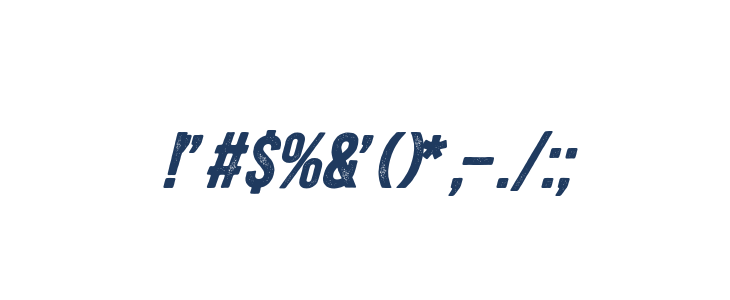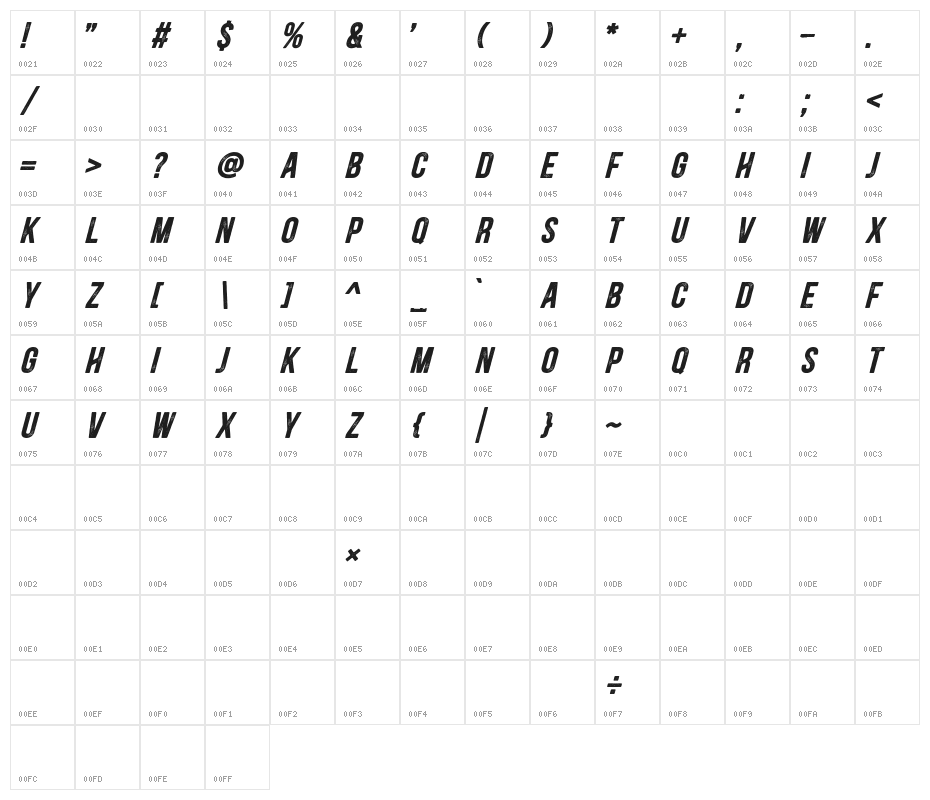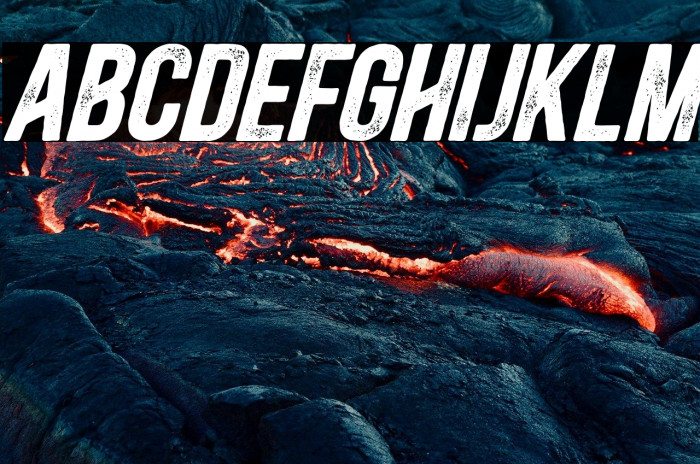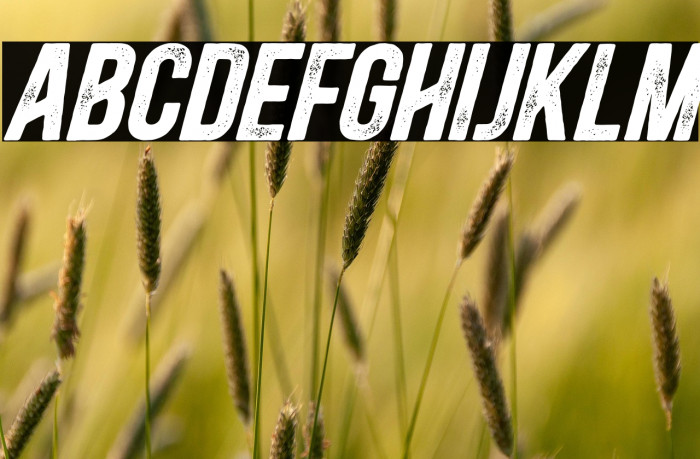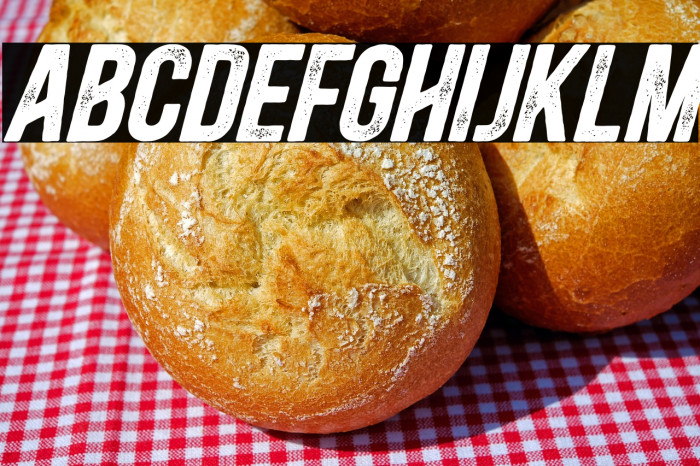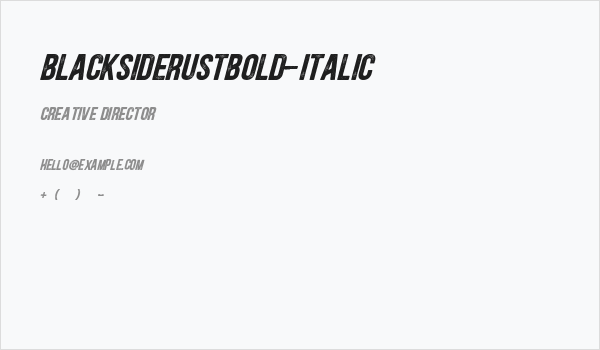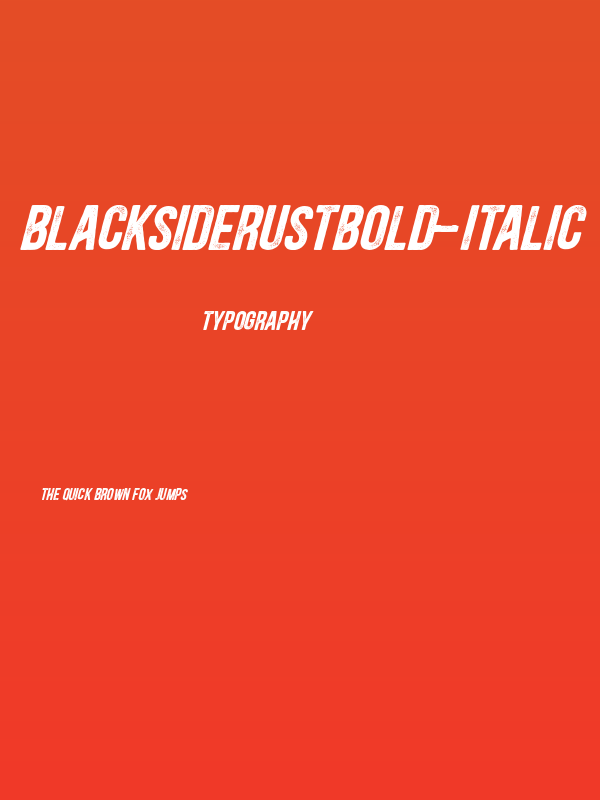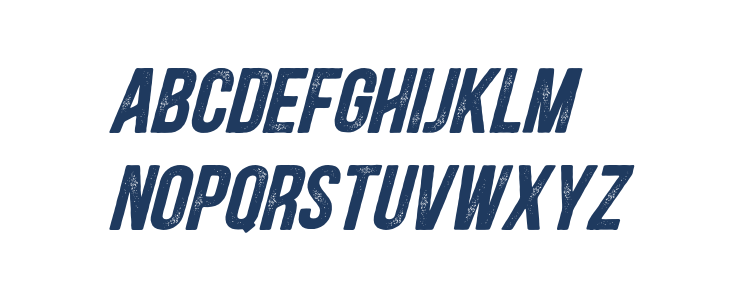
BlacksideRustBold-Italic Font
BlacksideRustBold-Italic Description
This font features a bold and italicized style with a distressed, textured appearance that gives it a rugged and vintage feel. The uppercase letters are prominent and impactful, making it suitable for attention-grabbing headlines. The characters are slightly condensed, enhancing their boldness and presence. The texture within each letter adds a unique, worn-out effect, reminiscent of old print or signage. This font's design is ideal for projects that require a strong, vintage aesthetic, such as posters, branding, or apparel design.
| Proposed Projects | Ideal for vintage-themed posters, branding, apparel design, and signage. |